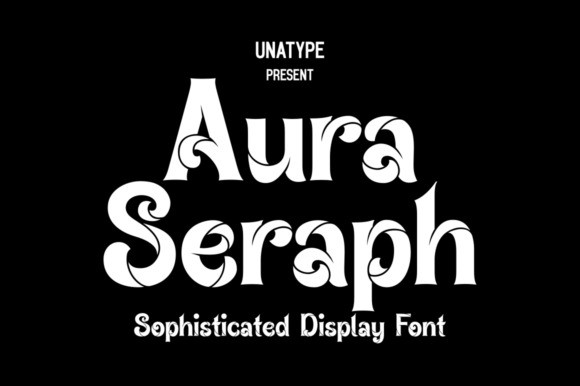
Aura Seraph Font
Aura Seraph Font: artistic elegance meets captivating design. This exceptional display font features meticulous craftsmanship, versatile styling options, and a wide character set. Perfect for designers, typographers, and creatives seeking to elevate their projects with a touch of sophistication and timeless beauty. Compatible with various design software, Aura Seraph seamlessly integrates into any workflow, making it an invaluable asset for creating visually stunning compositions.